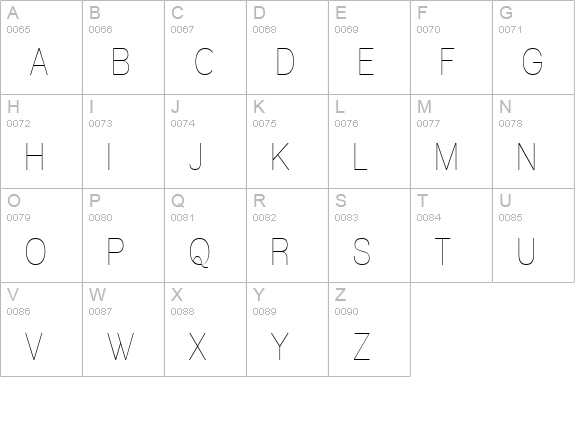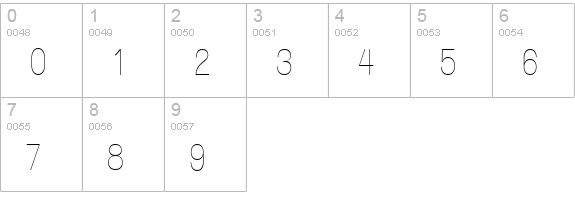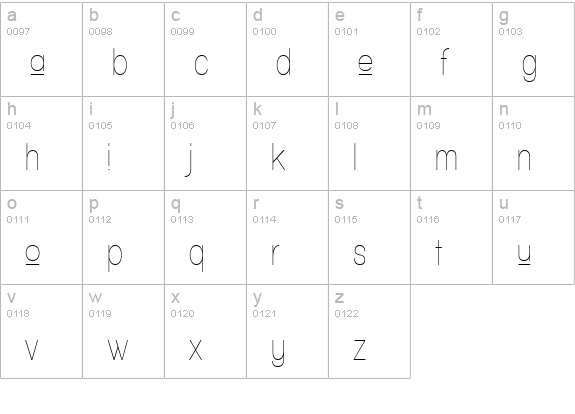
Walkway Upper Condensed is a distinctive, condensed-width variant in the Walkway typeface family \xE2\x80\x94 well suited to design and typography projects.
Walkway Upper Condensed font is a modern and stylish typeface that exudes sophistication and elegance. Its condensed design gives it a sleek and contemporary look, making it perfect for a wide range of design projects. The font features clean lines and sharp angles, adding a touch of professionalism to any text it is applied to. What makes Walkway Upper Condensed font even more appealing is that it is available for free download at FontsMarket.com. This means that you can easily access this high-quality font without any cost, making it a valuable addition to your font collection. Whether you are working on a branding project, a website design, or any other creative endeavor, Walkway Upper Condensed font will elevate your work with its unique and sophisticated style. Download it today and enhance your designs with this stunning font.